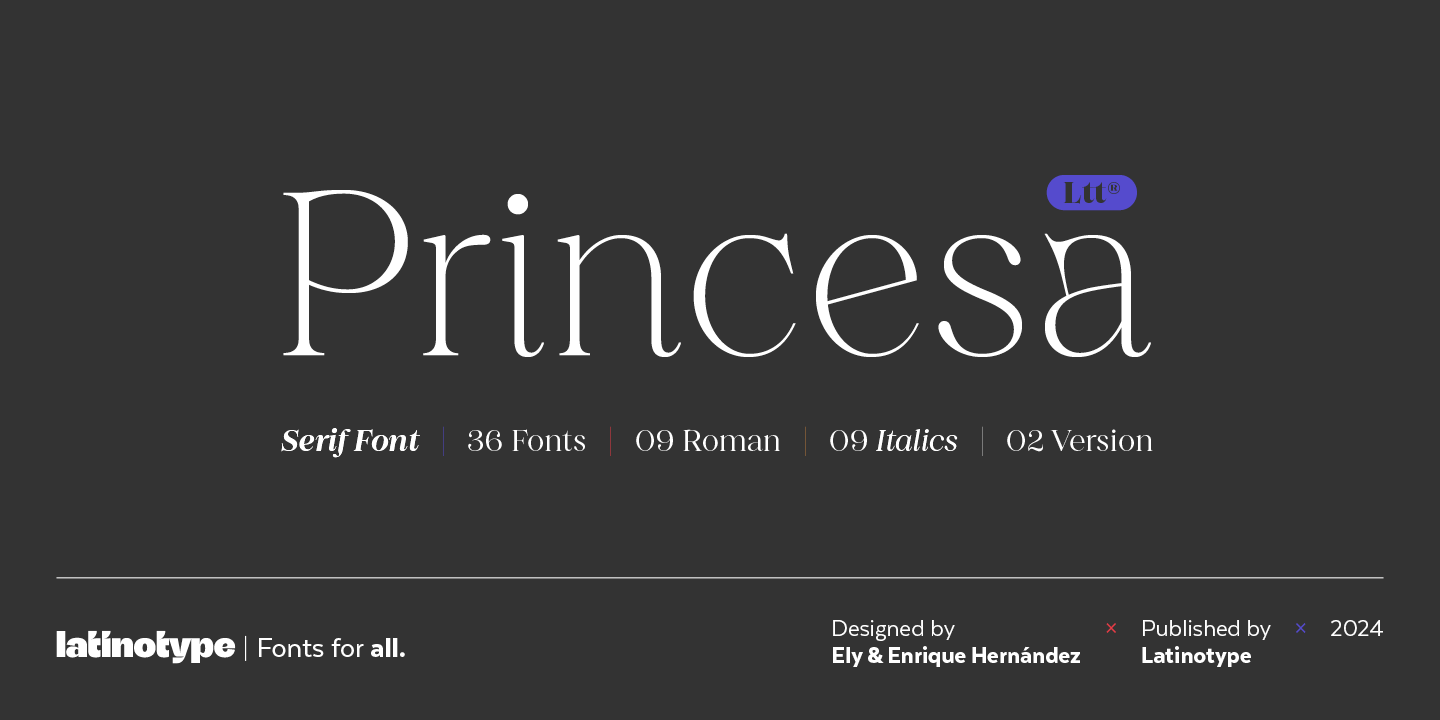
Princesa Font is perfect for fairy tale book covers, princess-themed party invitations, magical children's materials, enchanted wedding stationery, royal celebration designs, fantasy storytelling projects, little girl's bedroom décor, magical kingdom branding, fairy godmother communications, and whimsical dream applications. This enchanting typeface creates magical princess atmosphere in both storybook print and digital fairy tale platforms.
What makes Princesa Font exciting is its captivating royal elegance that perfectly embodies the magic and wonder of princess fairy tales with contemporary charm. The font features graceful letterforms with crown-inspired details and magical flourishes that evoke glass slippers, royal ballrooms, and happily-ever-after endings. Its enchanting design establishes an atmosphere of royal dreams and magical possibility that captivates audiences of all ages seeking fairy tale magic.
Princesa Font family includes royal variations: Light, Regular, Medium, Bold, and Tiara versions, each with magical alternates and princess character sets. Each variant maintains the font's royal personality while providing designers with enchanting options for creating magical typography systems and fairy tale communication materials.
This exceptional royal typeface brings authentic fairy tale magic to projects requiring princess presentation. Whether you're designing children's materials, magical branding, or enchanted event content, Princesa Font Free Download delivers outstanding royal charm and fairy tale sophistication. The font's magical proportions and princess details ensure memorable enchantment across various magical applications.
Children's brands and fairy tale creators recognize how Princesa Font perfectly captures the essence of princess magic and royal fairy tale dreams. Its enchanted foundation combined with royal elegance makes it essential for magical and children's design projects. Download today and crown your designs with this exceptionally magical princess typography.